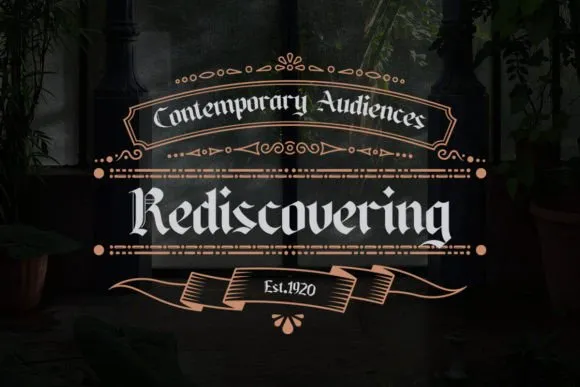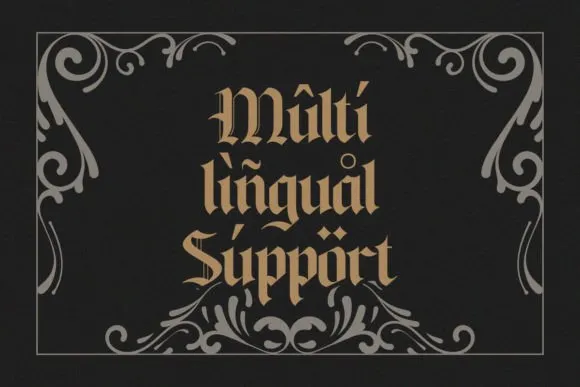
Baghen Font isn’t simply a text style; it’s an excursion back so as to the class of Early English content. With its exemplary appearance and many-sided subtleties, Baghen carries a bit of memorable refinement to your plans.
Made for originators looking to imbue their tasks with a feeling of custom and validness, Baghen Font typifies the substance of Blackletter textual styles and rare typography.
With its luxurious twists and one of a kind allure, Baghen is ideally suited for making solicitations, signage, and marking materials that request consideration and bring out a feeling of immortal excellence.